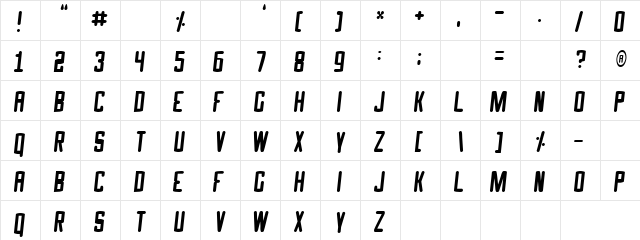
Jurassic Quest Regular
Design Context for Jurassic Quest Typeface
Jurassic Quest takes a measured approach to typography — its balanced proportions and neutral character make it a reliable workhorse for both digital and print work.